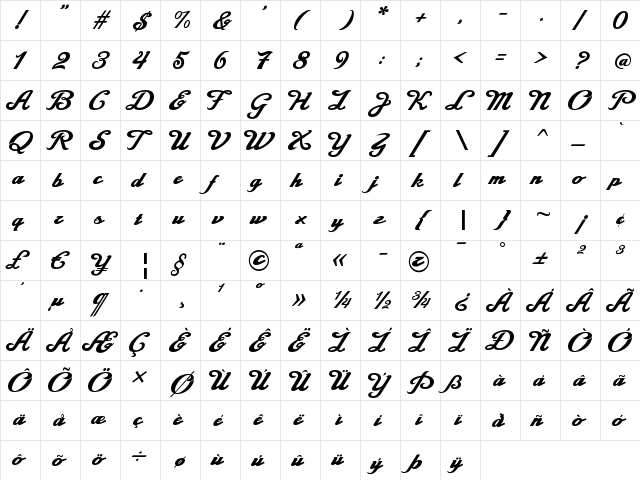
La Macchina Regular
| Designer | Michael Hagemann |
Design Context for La Macchina Typeface
La Macchina is a composed and adaptable typeface that performs quietly and consistently across a wide range of design contexts.